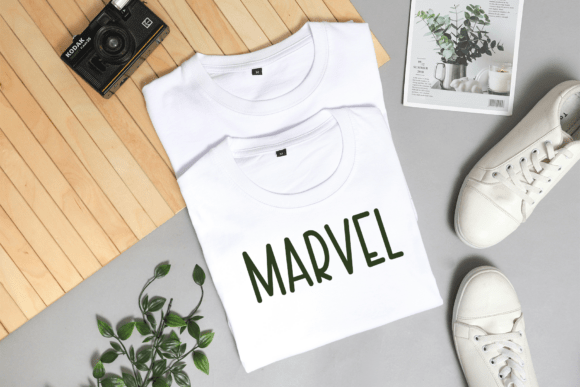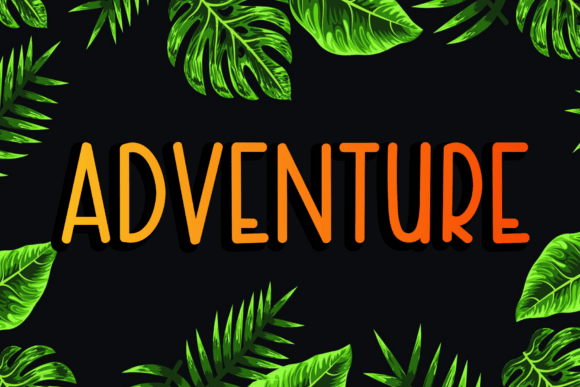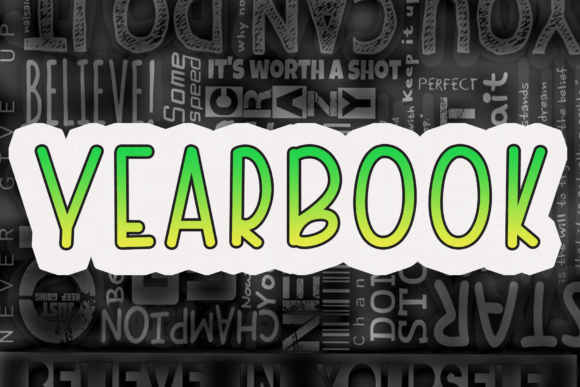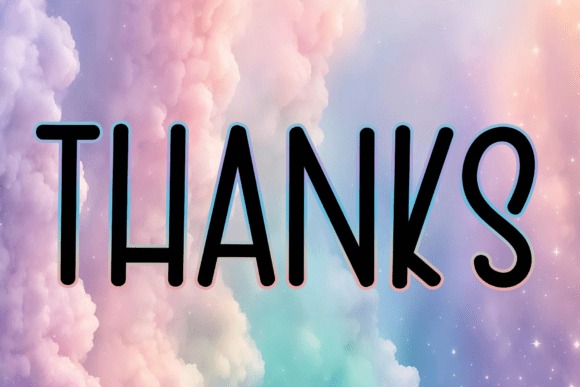
Cinematic Font: Adding a Lovely Touch to Your Designs
Cinematic is a sweet and friendly handwritten font that has been gaining popularity among designers and crafters. Its fresh and casual vibe makes it an ideal choice for writing wedding invitations, cards, or any other design that might need a lovely touch. In this article, we’ll dive into the world of Cinematic Font, exploring its features, uses, and benefits.
What is Cinematic Font?
Cinematic Font is a type of handwritten font that exudes a sense of warmth and friendliness. Its unique and elegant style makes it perfect for adding a personal touch to various designs. The font is characterized by its flowing lines, subtle curves, and delicate strokes, which give it a charming and sophisticated look.
Features of Cinematic Font
- Handwritten style: Cinematic Font has a beautiful handwritten style that gives it a personal and emotional touch.
- Fresh and casual: The font has a fresh and casual vibe, making it perfect for designs that require a relaxed and approachable feel.
- Elegant and sophisticated: Despite its casual nature, Cinematic Font has an elegant and sophisticated look that makes it suitable for formal designs.
- Highly readable: The font is highly readable, even at small sizes, making it perfect for use in a variety of designs.
Uses of Cinematic Font
Cinematic Font is a versatile font that can be used in a variety of designs, including:
- Wedding invitations: The font’s elegant and sophisticated style makes it perfect for wedding invitations, save-the-date cards, and other wedding-related designs.
- Cards and stationery: Cinematic Font is ideal for writing cards, letters, and other stationery that require a personal touch.
- Branding and packaging: The font’s unique style makes it suitable for use in branding and packaging designs that require a friendly and approachable feel.
- Digital designs: Cinematic Font can be used in digital designs, such as social media graphics, blog posts, and website headers.
Benefits of Using Cinematic Font
Using Cinematic Font in your designs offers several benefits, including:
- Unique and distinctive style: The font’s unique style sets it apart from other fonts, making your designs stand out.
- Emotional connection: Cinematic Font’s handwritten style creates an emotional connection with the reader, making your designs more relatable and engaging.
- Flexibility: The font’s versatility makes it suitable for use in a variety of designs, from formal to informal.
Tips for Using Cinematic Font
Here are some tips for using Cinematic Font effectively in your designs:
- Use it sparingly: Use Cinematic Font sparingly to avoid overwhelming the reader.
- Pair it with other fonts: Pair Cinematic Font with other fonts to create a unique and visually appealing design.
- Adjust the size and color: Adjust the size and color of the font to suit your design.
- Experiment with different styles: Experiment with different styles, such as italicizing or bolding the font, to add emphasis.
Cinematic Font is a beautiful and versatile font that can add a lovely touch to your designs. Its unique and elegant style makes it perfect for a variety of designs, from wedding invitations to digital designs. With its ease of use and flexibility, Cinematic Font is a great choice for designers and crafters looking to add a personal touch to their work.